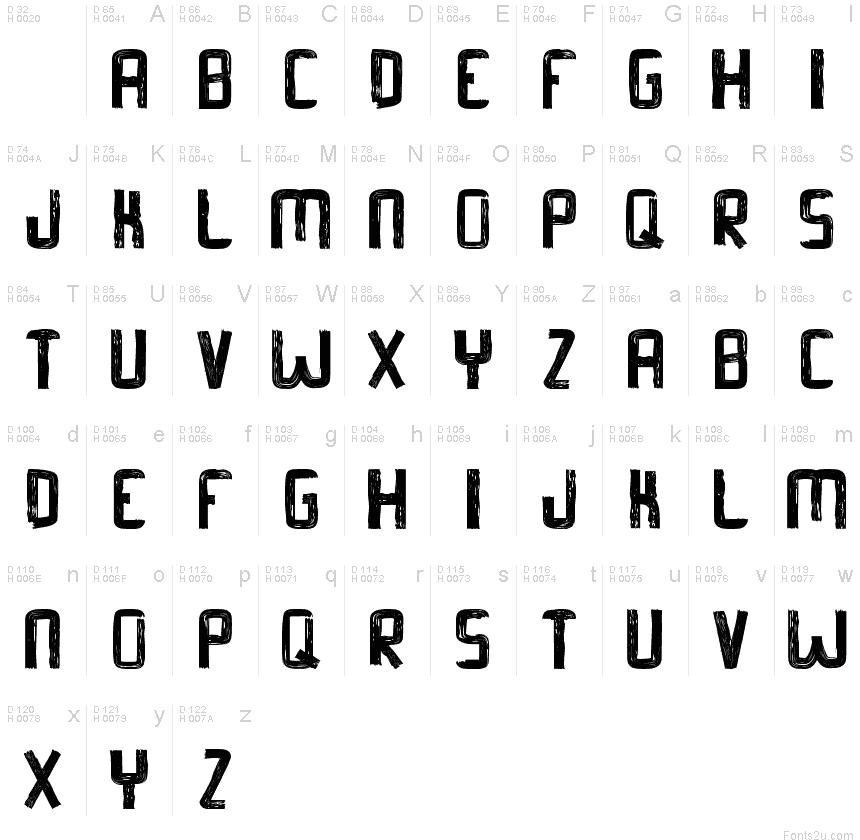
Barker-AllCapsDemo
This is an All caps version of my new font Barker. It's available to you as donation ware, if you use it commercially I would like you to pay me. Check out my readme file enclosed in the Zip.
Barker AllCapsDemo
Barker